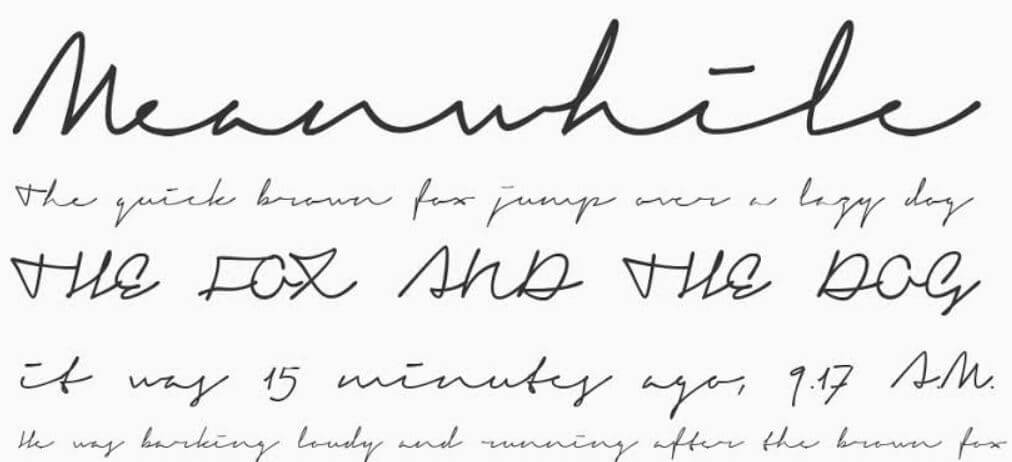
Signerica Font
Signerica Font is a handwritten script font created by Mans Grebäck, a well-known Swedish type designer. This font has been downloaded over 2 million times and is a top favorite among the designer’s collection.
Signerica is a tremendous font for headlines, decorative text and symbols. Signerica has a narrow underlying shape with benja comic book font, and unbracketed serifs.